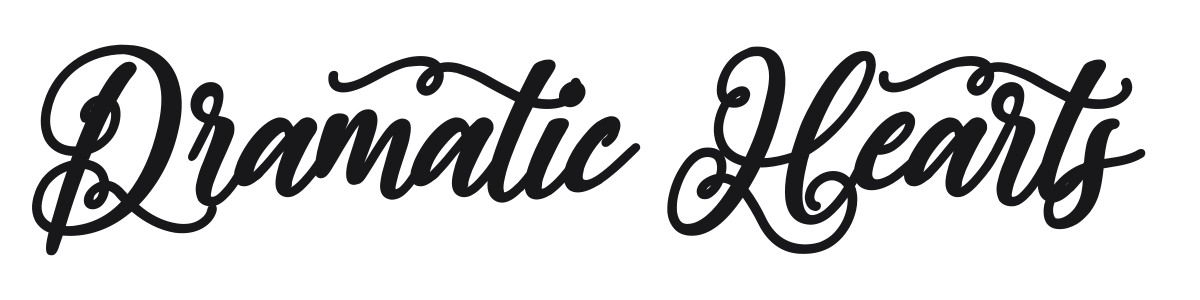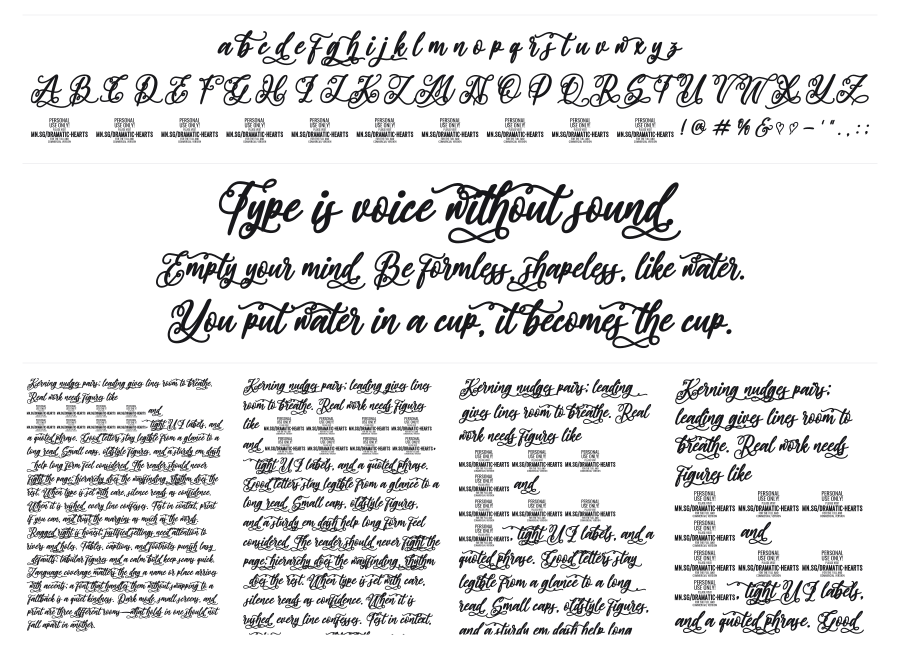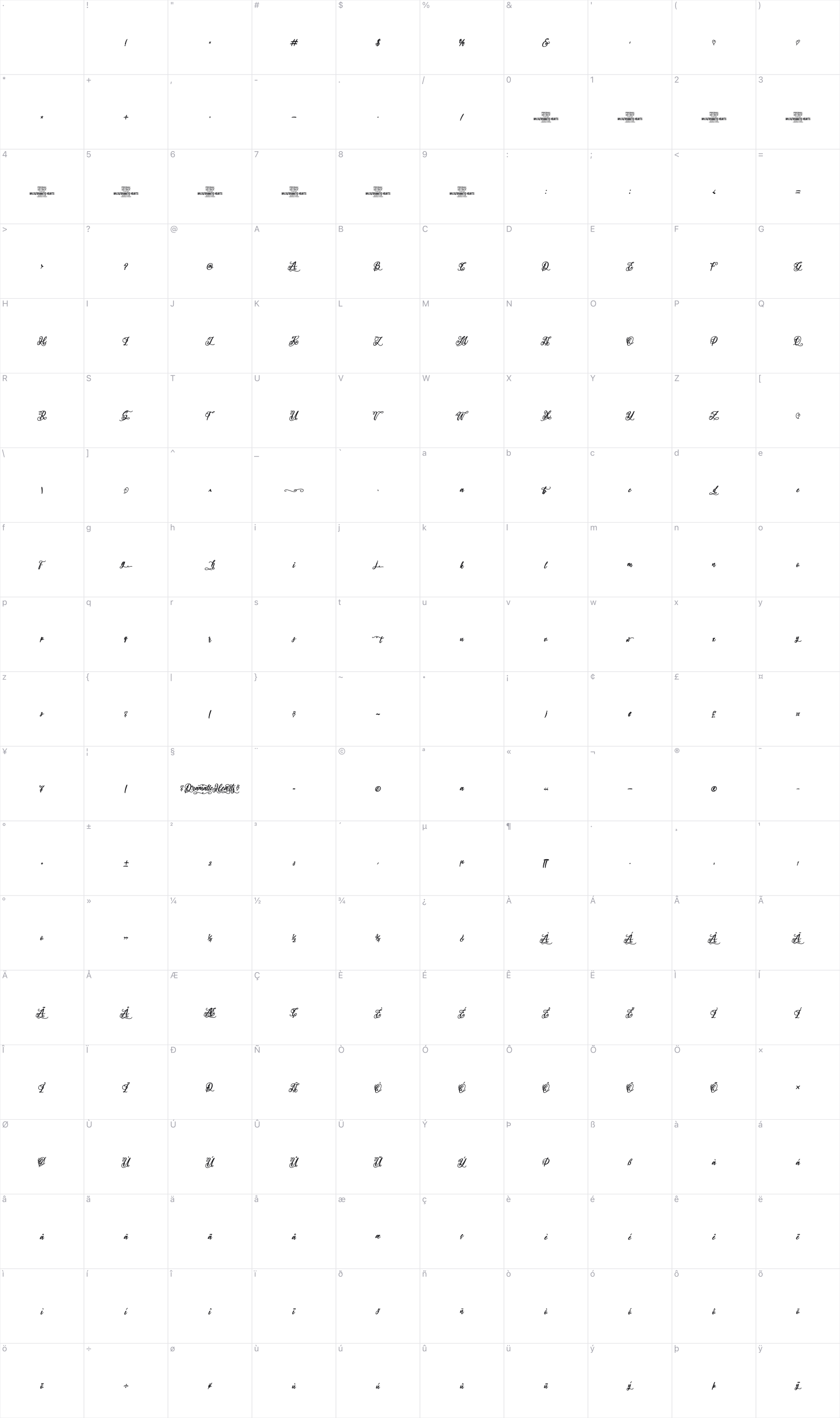
Dramatic Hearts
Dramatic Hearts is a lush, bold casual script that leans hard into romance and celebration. Swashy capitals with looping flourishes and a bouncy rhythm give it an expressive, hand-lettered energy that flat digital scripts rarely achieve. It comes in eight styles including swash and italic variants, with OpenType alternates and heart symbols tucked into the parenthesis characters.